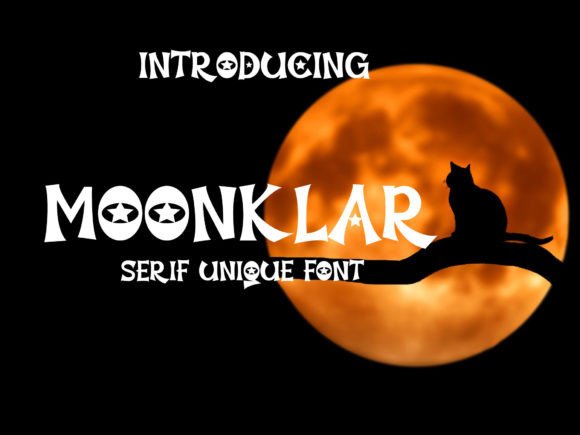
Moonklar Font
Welcome to the realm of Moonklar, a captivating display font that will unleash your creative prowess. Immerse yourself in the world of comics, where heroes clash, villains lurk, and dreams ignite. With Moonklar, you hold the power to craft captivating narratives that leap off the page and resonate with readers' souls.
Moonklar is not just another font; it's a gateway to an extraordinary realm where imagination knows no bounds. Its meticulously crafted characters possess an unparalleled charm, inviting readers to delve into stories that transcend reality. Each letterform dances with grace, guiding the reader's eyes through thrilling adventures and unveiling hidden depths within the narrative.
Whether you're a seasoned comic book creator or an aspiring storyteller, Moonklar is the perfect companion for your artistic journey. Its versatility extends beyond the comic book genre, making it an ideal choice for logos, magazines, social media, and brochures. Its captivating presence adds a touch of magic to any project, leaving a lasting impression on your audience.
With Moonklar, you'll discover a font that not only enhances your designs but also breathes life into your creations. Its remarkable ability to evoke emotions and captivate readers is a testament to its exceptional craftsmanship. As you weave words together, Moonklar will transform them into captivating tapestries that transport readers to extraordinary worlds.
Don't settle for ordinary fonts that blend into the background. Embrace the power of Moonklar and unlock the true potential of your storytelling. Let your imagination soar, let your characters come alive, and let Moonklar guide you to creative heights you never thought possible.